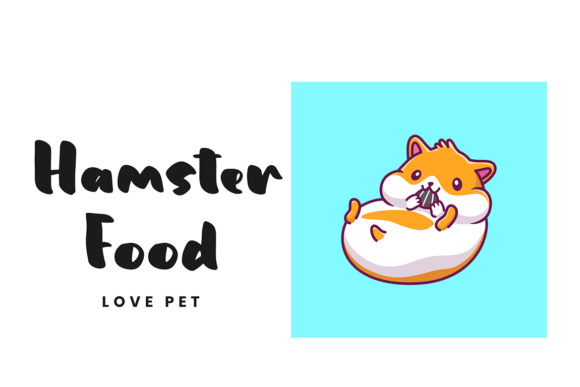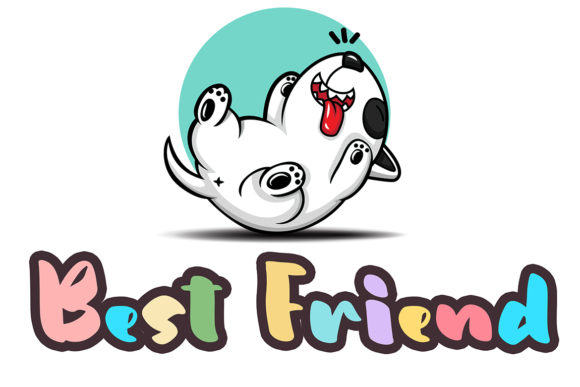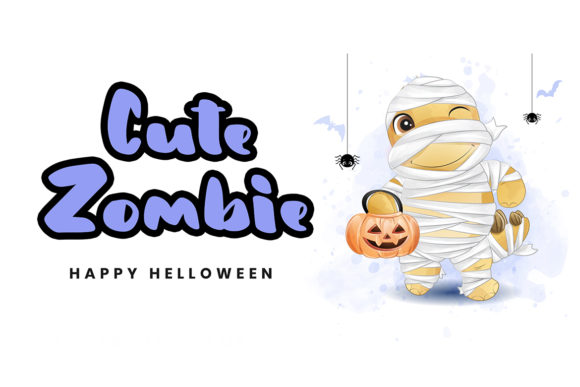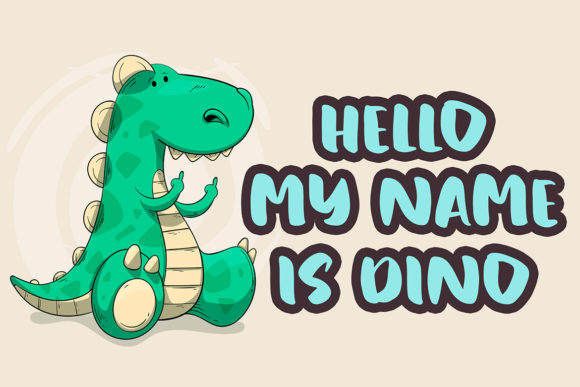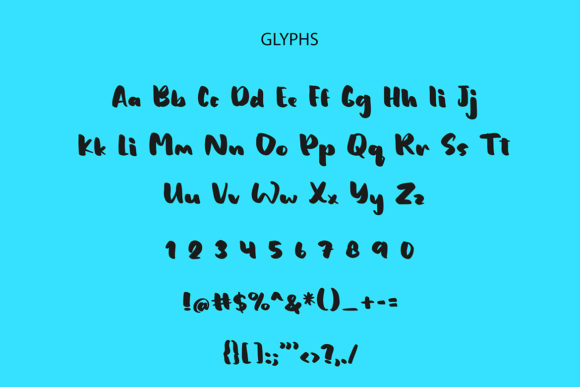
Beri Font: The Cute and Quirky Display Font to Elevate Your Designs
Are you tired of using the same old fonts in your designs? Look no further! Beri Font is here to add a joyful touch to your creative projects. This cute and quirky display font is perfect for designers and crafters who want to make their designs stand out. In this article, we’ll explore the features and benefits of Beri Font, and how it can be used in various design projects.
What is Beri Font?
Beri Font is a unique and playful display font that is designed to add a touch of whimsy to your designs. Its cute and quirky style makes it perfect for projects that require a fun and youthful approach. Whether you’re working on a branding project, logo design, or social media post, Beri Font is sure to make your design pop.
Key Features of Beri Font
- Cute and Quirky Style: Beri Font has a unique and playful style that is sure to add a joyful touch to your designs.
- Display Font: Beri Font is a display font, making it perfect for headlines, titles, and other prominent text elements.
- Versatile: Beri Font can be used in a variety of design projects, from branding and logos to social media posts and product packaging.
Benefits of Using Beri Font
So, why should you use Beri Font in your designs? Here are just a few benefits:
- Adds a Joyful Touch: Beri Font is designed to add a playful and whimsical touch to your designs, making them more engaging and fun.
- Improves Readability: Beri Font is a clear and legible font, making it easy to read and understand.
- Increases Creativity: With Beri Font, you can add a unique and creative touch to your designs, setting them apart from the rest.
Use Cases for Beri Font
Beri Font is a versatile font that can be used in a variety of design projects. Here are some use cases to get you started:
- Branding Projects: Use Beri Font to create a unique and memorable brand identity.
- Logo Design: Beri Font is perfect for creating a fun and playful logo that stands out.
- T-Shirt Designs: Add a playful touch to your t-shirt designs with Beri Font.
- Book Cover Design: Use Beri Font to create a eye-catching book cover that grabs attention.
- Social Media Posts: Beri Font is perfect for creating engaging and fun social media posts.
- Advertisements: Use Beri Font to create eye-catching advertisements that stand out.
- Product Packaging: Add a playful touch to your product packaging with Beri Font.
- Product Designs: Beri Font is perfect for creating fun and playful product designs.
- Labels and Watermarks: Use Beri Font to create custom labels and watermarks.
- Invitations and Stationery: Beri Font is perfect for creating fun and playful invitations and stationery.
Tips for Using Beri Font
Here are some tips for using Beri Font in your designs:
- Use it as a Headline Font: Beri Font is perfect for headlines and titles, so use it to grab attention.
- Experiment with Colors: Beri Font looks great in a variety of colors, so experiment to find the perfect combination.
- Pair it with Other Fonts: Beri Font can be paired with other fonts to create a unique and interesting design.
Beri Font is a cute and quirky display font that is perfect for designers and crafters who want to add a joyful touch to their designs. With its versatile style and wide range of use cases, Beri Font is sure to become a favorite in your design toolkit. So why not give it a try and see how it can elevate your designs?